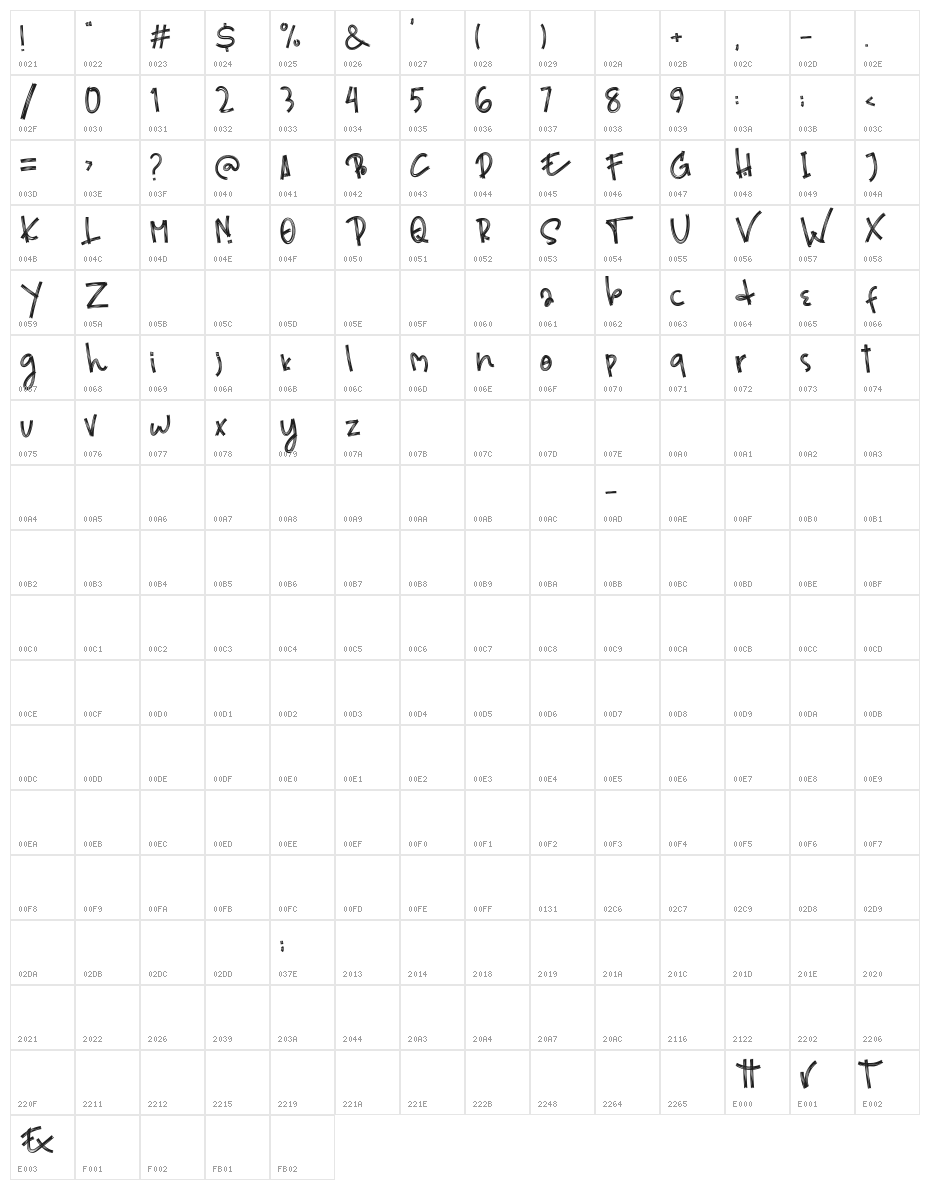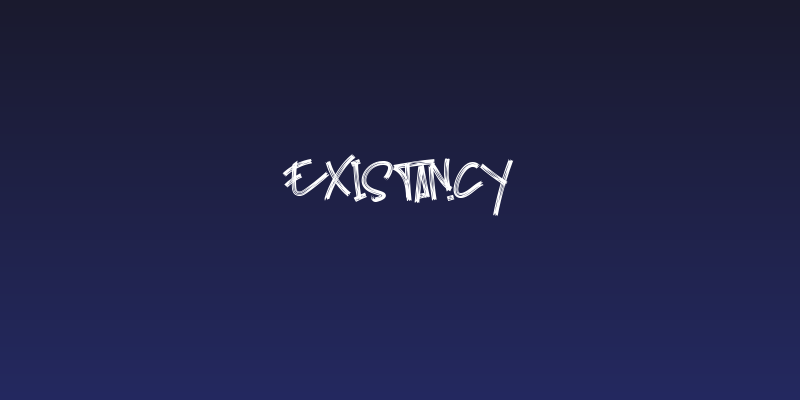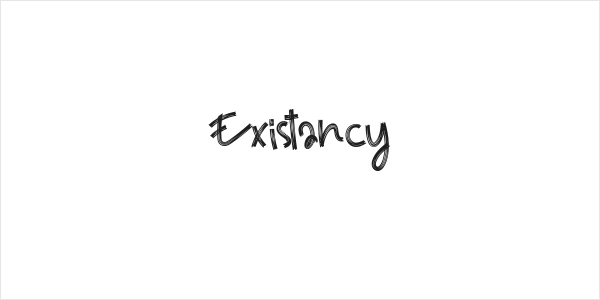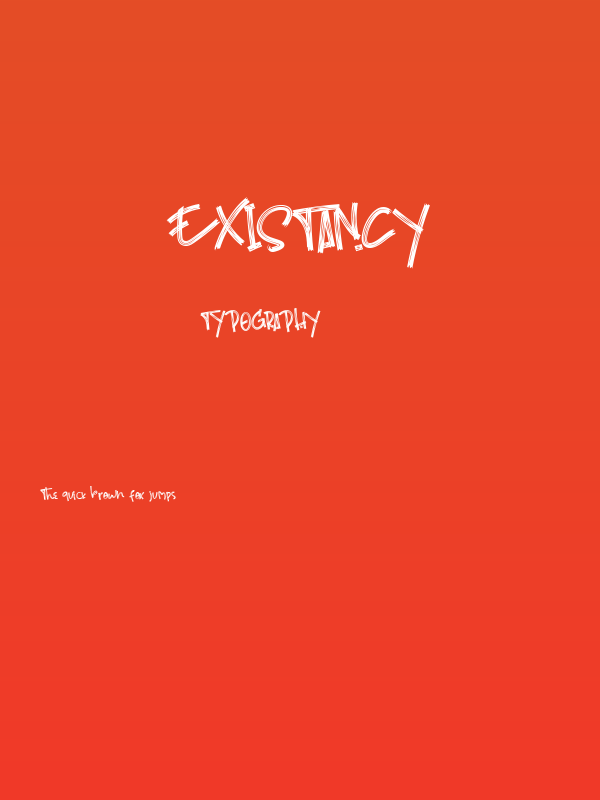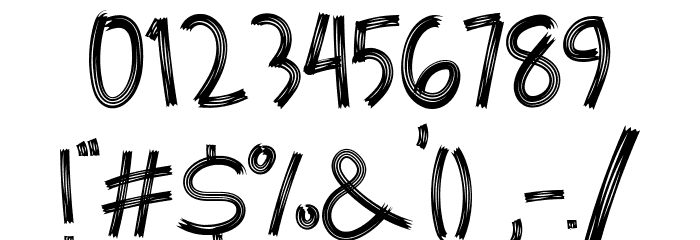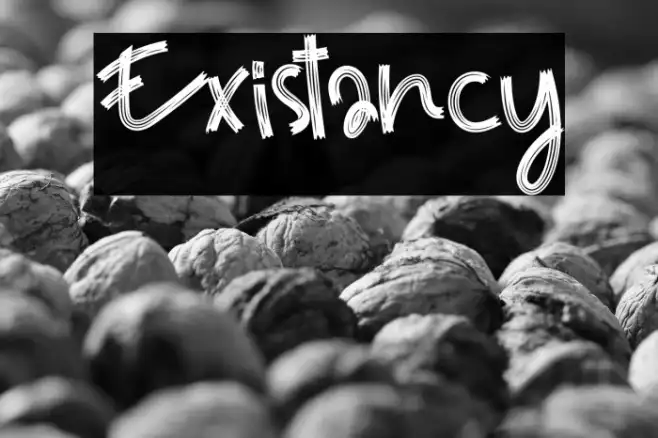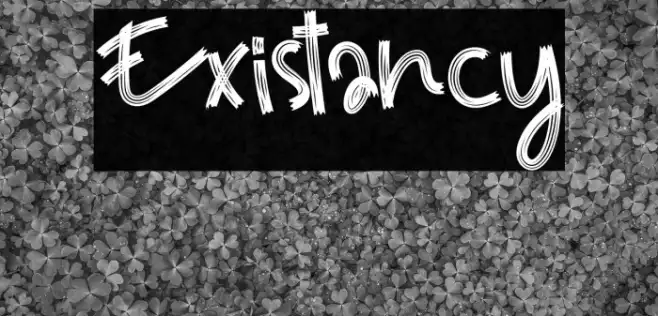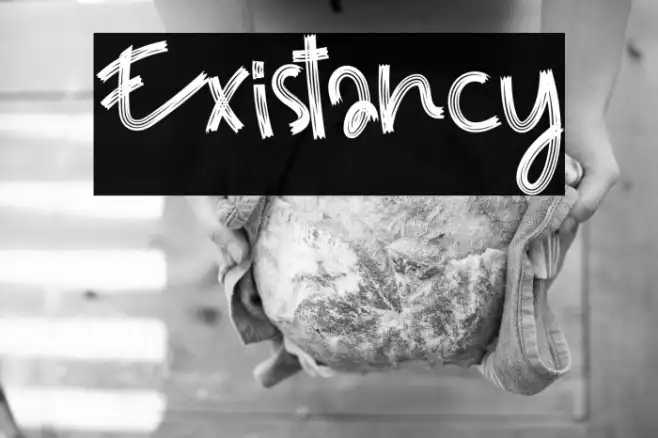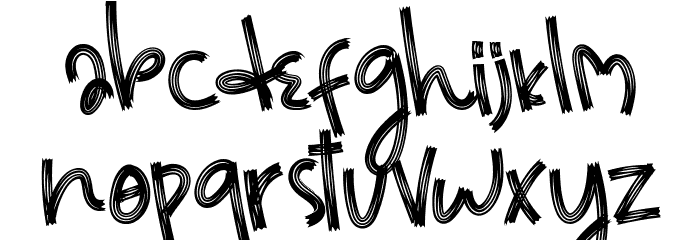
Existancy Font
Existancy Description
This font features a bold and dynamic style with a hand-drawn, sketch-like appearance. The characters are irregular and playful, with a sense of movement and energy. Each letter is uniquely crafted, giving the font a distinctive and artistic flair. The strokes are thick and uneven, creating a textured look that adds depth and character. The font is highly decorative and stands out with its expressive and unconventional design. It is suitable for projects that require a creative and informal touch, making it ideal for artistic and eye-catching designs.
| Proposed Projects | Ideal for posters, album covers, artistic branding, and creative social media graphics. |